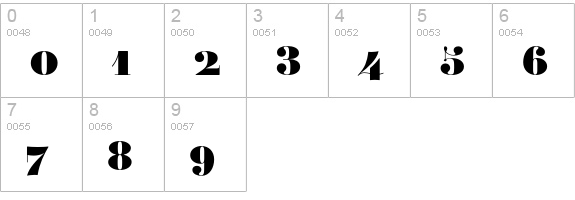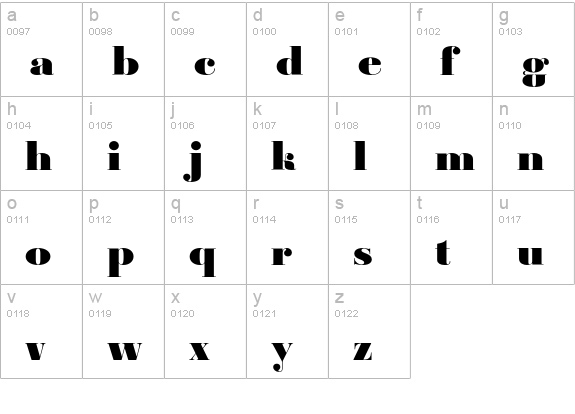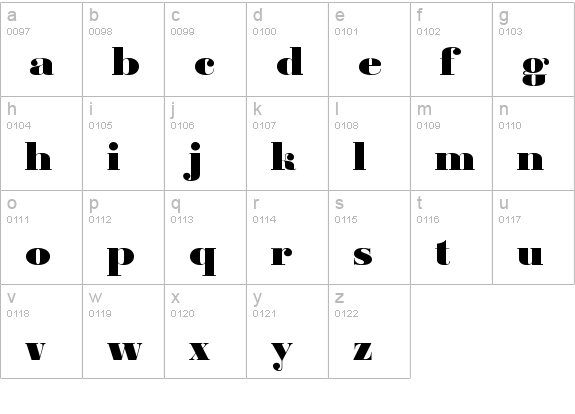
Ambroise Black is a maximum-weight, dramatic variant in the Ambroise typeface family \xE2\x80\x94 well suited to maximum-impact headlines, posters, and packaging.
Ambroise Black font exudes a sense of elegance and sophistication with its timeless and classic design. This versatile typeface is perfect for adding a touch of refinement to any project, whether it be print or digital. The bold and commanding presence of Ambroise Black makes it ideal for headlines, titles, and other prominent text elements. What sets Ambroise Black apart is not only its striking aesthetic appeal but also its versatility and readability. The clean lines and well-balanced proportions of this font ensure excellent legibility across various mediums and sizes. Best of all, Ambroise Black is available for free download at FontsMarket.com. This means you can easily access this exquisite font to elevate your designs without any cost. Don't miss out on the opportunity to enhance your projects with the timeless charm of Ambroise Black font.